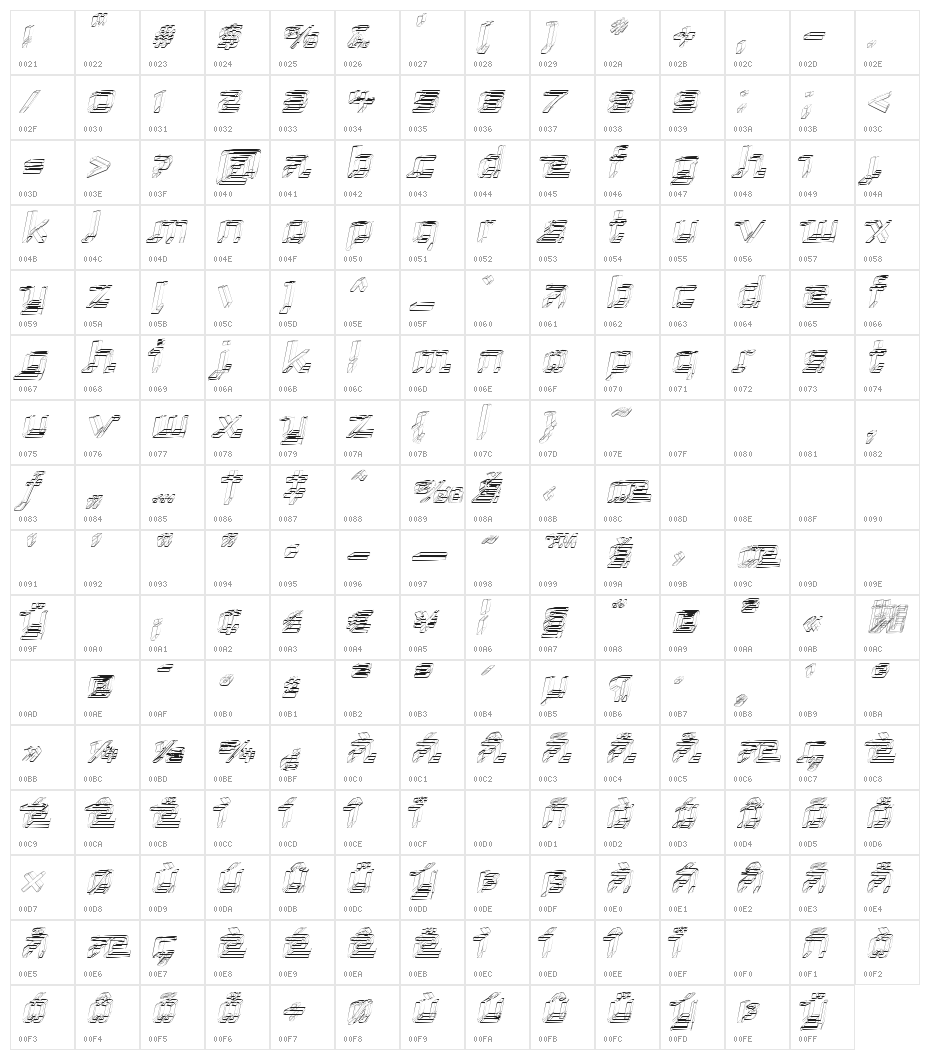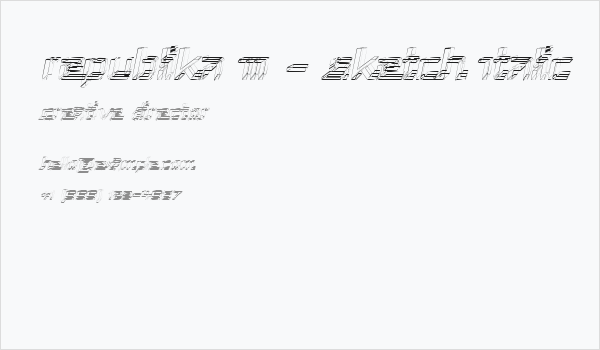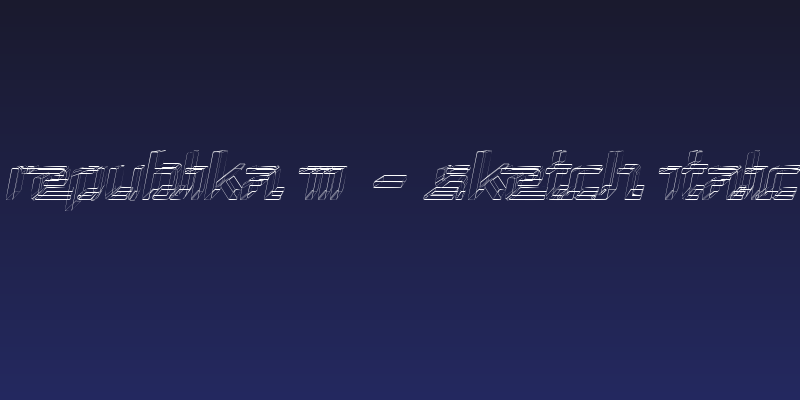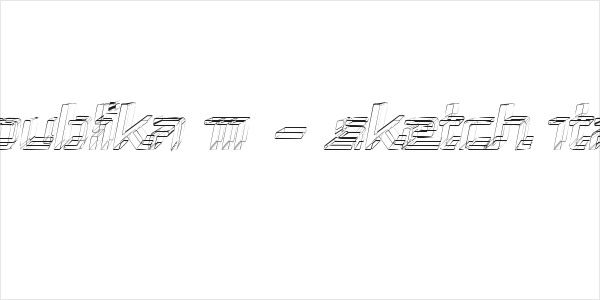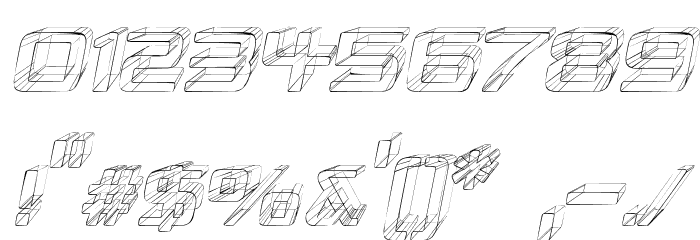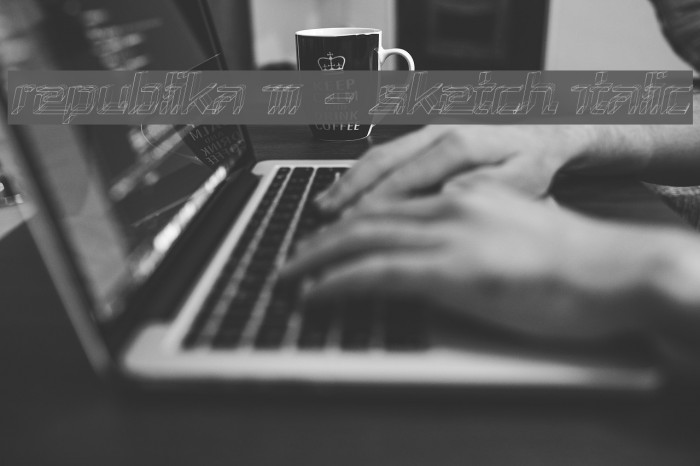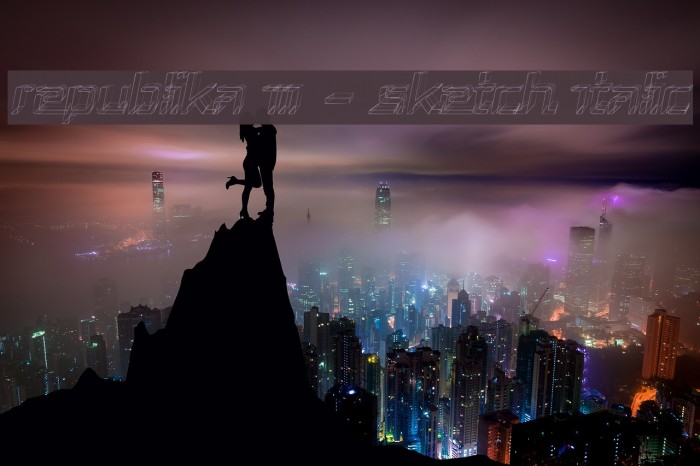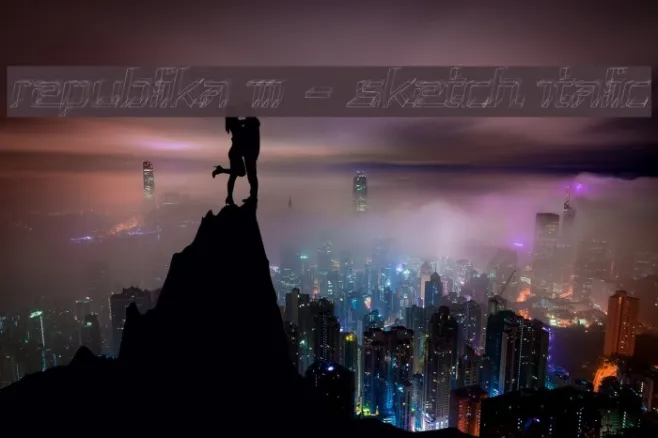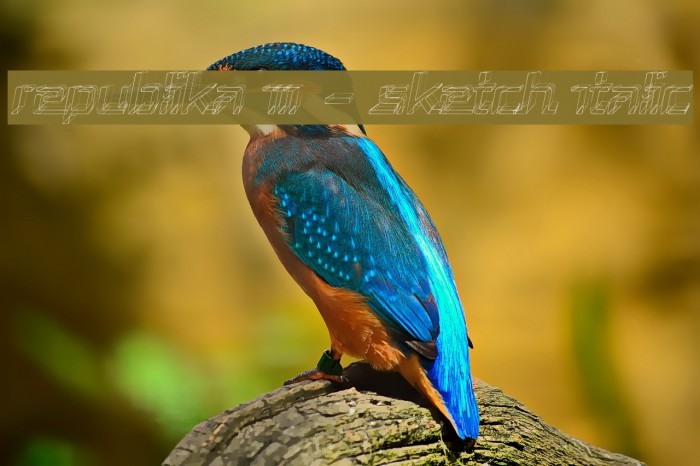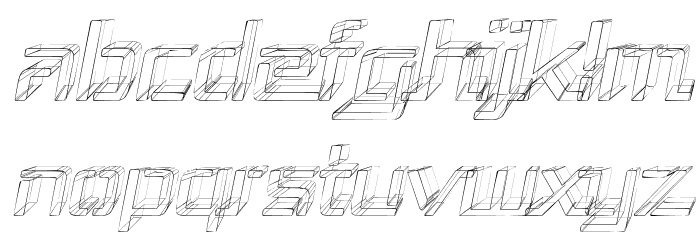
Republika III - Sketch Italic Font
Republika III - Sketch Italic Description
This font features a dynamic, sketch-like appearance with a three-dimensional effect, giving it a unique and artistic flair. The characters are italicized, adding a sense of motion and energy. Each letter is outlined with multiple lines, creating a layered and textured look that resembles a hand-drawn sketch. The font maintains a consistent slant throughout, enhancing its cohesive and stylized design. Its geometric structure is evident in the angular forms and sharp edges, making it suitable for creative and modern projects. The font's playful yet structured style makes it versatile for various design applications.
| Overall Style | Modern, Artistic |
| Proposed Projects | Ideal for artistic projects, modern branding, creative posters, and unique logo designs. |